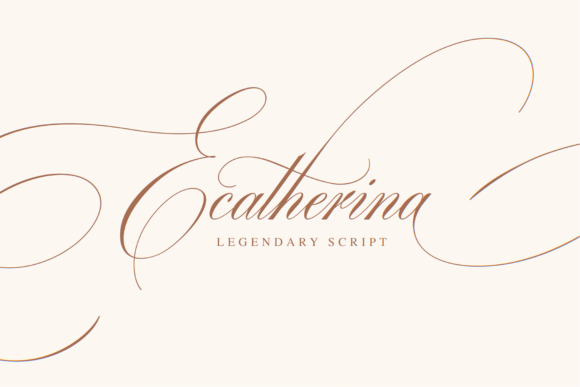
Looking for a beautiful and elegant script font that is perfect for children's invitation, wedding invitations, stationary art, social media posts, and more? Look no further than Ecatherina Font! Created by Blessed Print, this font family is sure to impress with its thin and graceful lettering style.
Ecatherina Font is the perfect choice for anyone looking to create stunning and eye-catching designs. Its ravishing style will make your invitations, artwork, and social media posts stand out from the crowd. With its PUA encoding, you can easily access all of the glyphs and swashes included with the font, making it even more versatile and customizable.